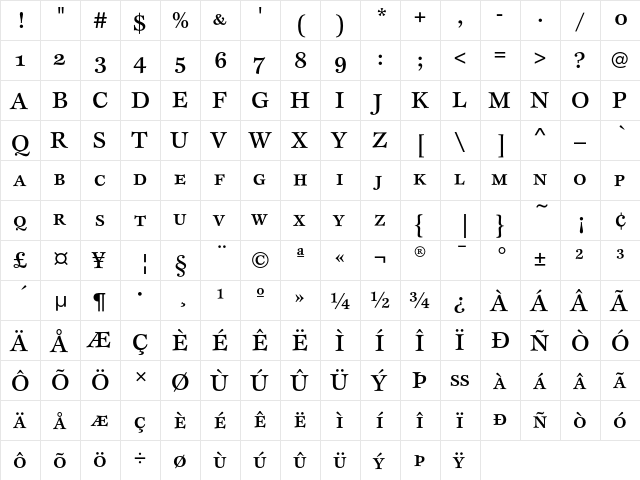
EspritSCEF Medium Font Preview
EspritSCEF Medium
Design Context for EspritSCEF Typeface
EspritSCEF takes a measured approach to typography — its balanced proportions and neutral character make it a reliable workhorse for both digital and print work.